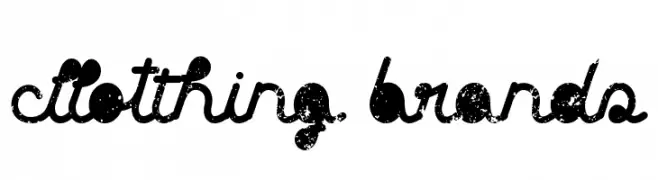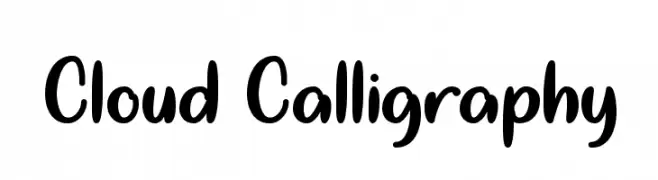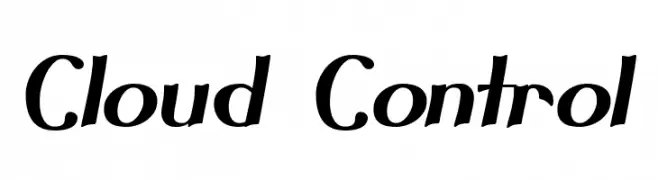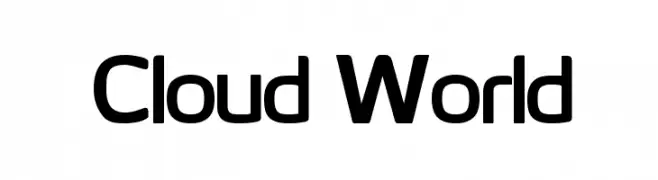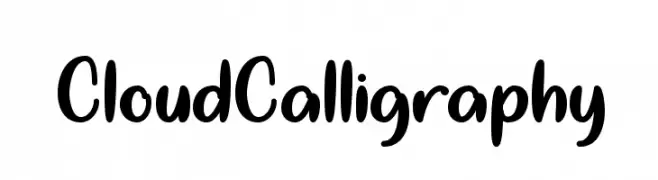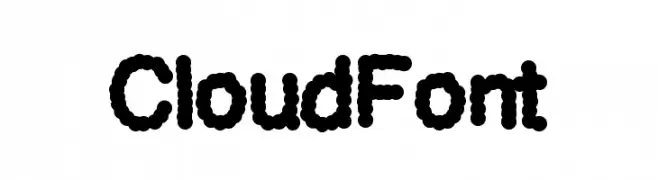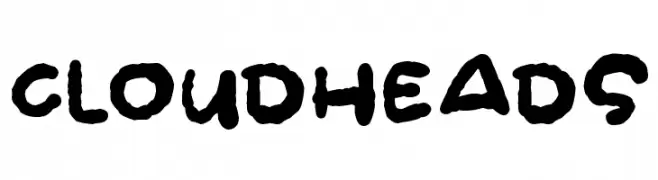
( Qkila - Quentin Aquila - www.creativefabrica.com/designer/qkila/ )
A distressed, grunge-style handwritten script font with a bold, textured appearance.
( Misti's Fonts - mistifonts.com/ )
A playful, handwritten font with smooth, rounded edges and a friendly appearance.
( Misti's Fonts - mistifonts.com/ )
A playful, handwritten font with smooth, rounded edges and a whimsical style.
A pixelated, monospaced font with a retro digital style.
A bold, pixelated font with a retro, digital aesthetic.
( Fonts by Jadatype )
A playful, cloud-like font with a bold, rounded appearance.
( Myfontsxo )
A playful, cloud-like font with rounded, bubbly characters.
( Darrell Flood )
A bold, playful, hand-drawn font with rounded, irregular characters.